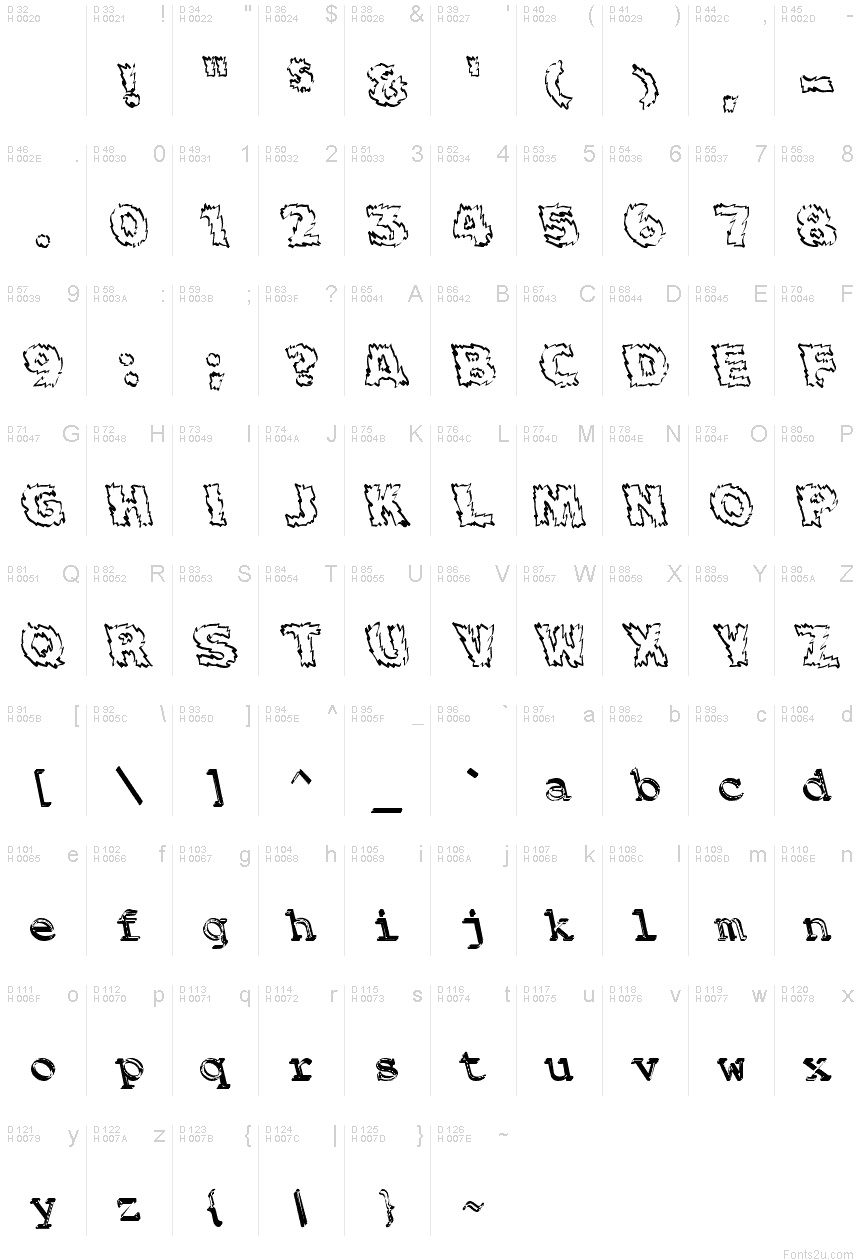
Backfire Medium
Backfire font by CompuWorks is a free distorted display typeface that looks like it’s been dragged through smoke and static. Chunky letterforms buckle and ripple, with scorched-looking edges and inky shadows that give each word a restless, hand-torched feel. It’s loud, messy in all the right ways, and instantly pulls the eye toward whatever you want to shout, scream, or scratch across the page.
Using Backfire, you get that gritty, chaotic energy that shines on horror posters, Halloween flyers, punk or metal band logos, escape room branding, game titles, and edgy zine covers. This free font thrives at large sizes where its jagged contours and warped shapes can really show. Pair it with a clean, neutral sans serif for body copy to keep the wildness contained while Backfire handles the attitude.